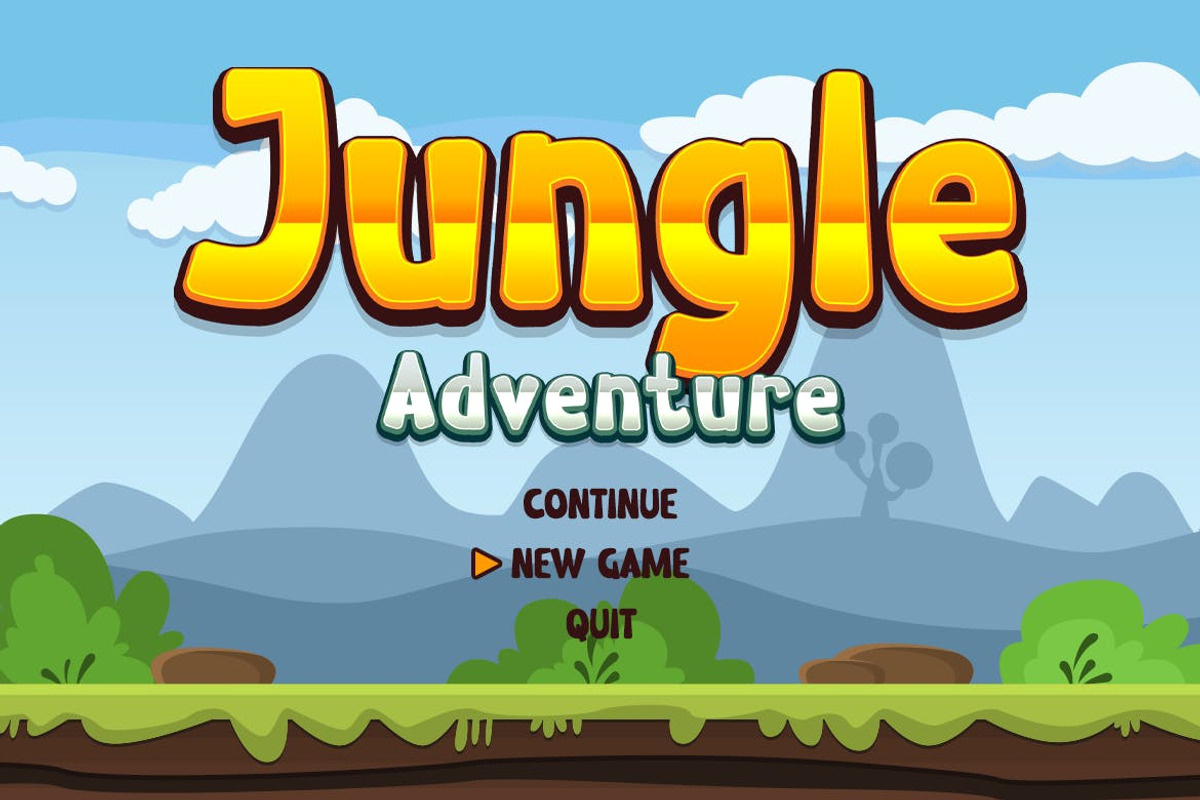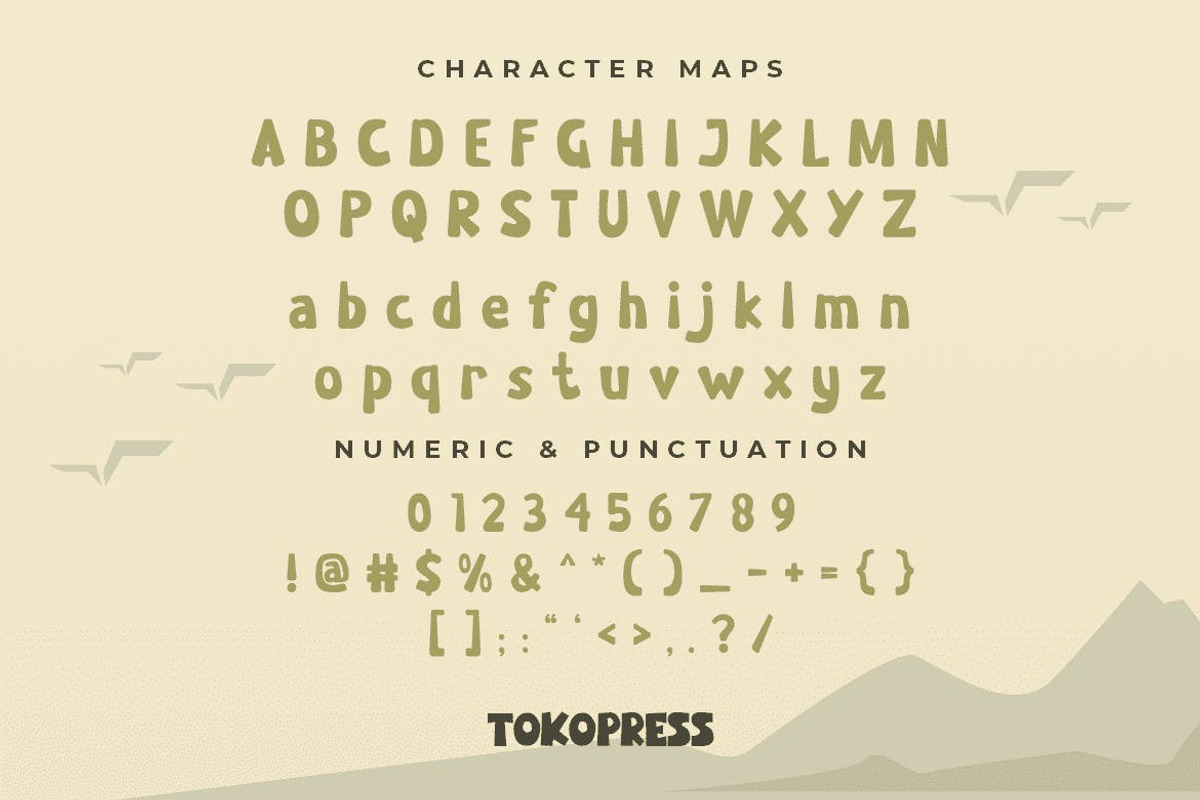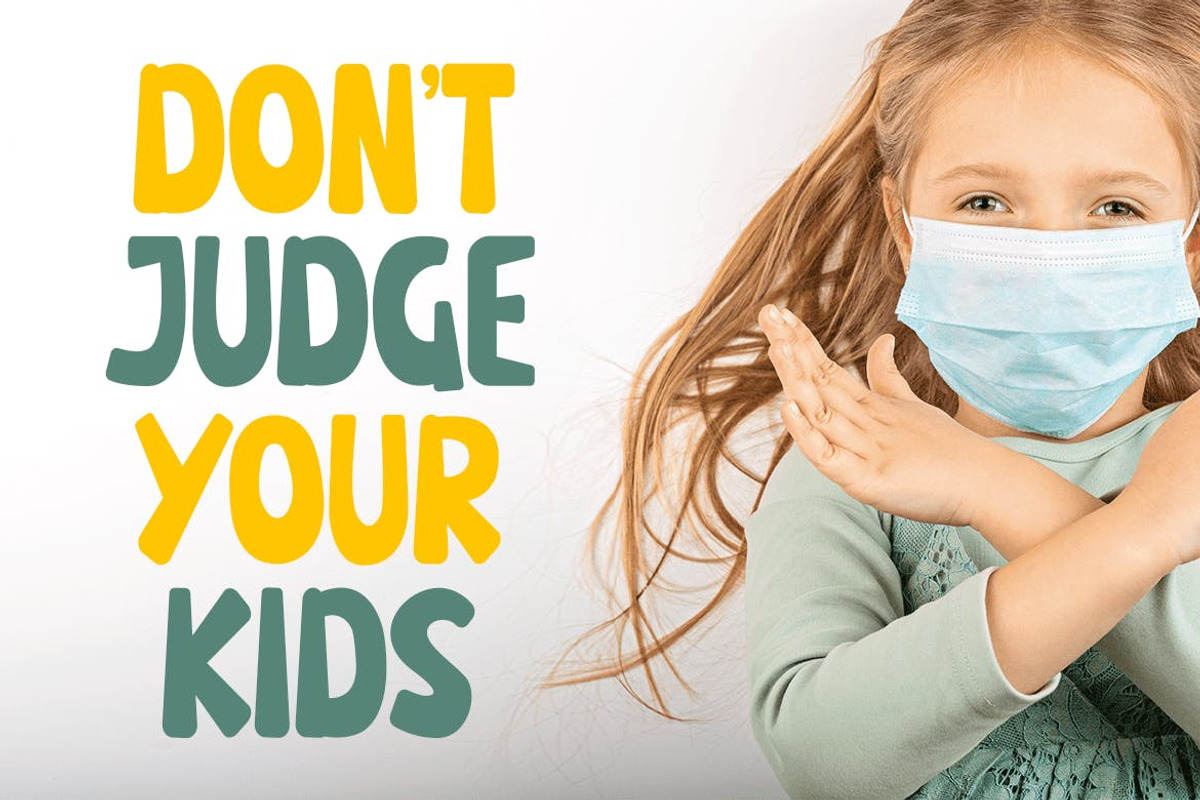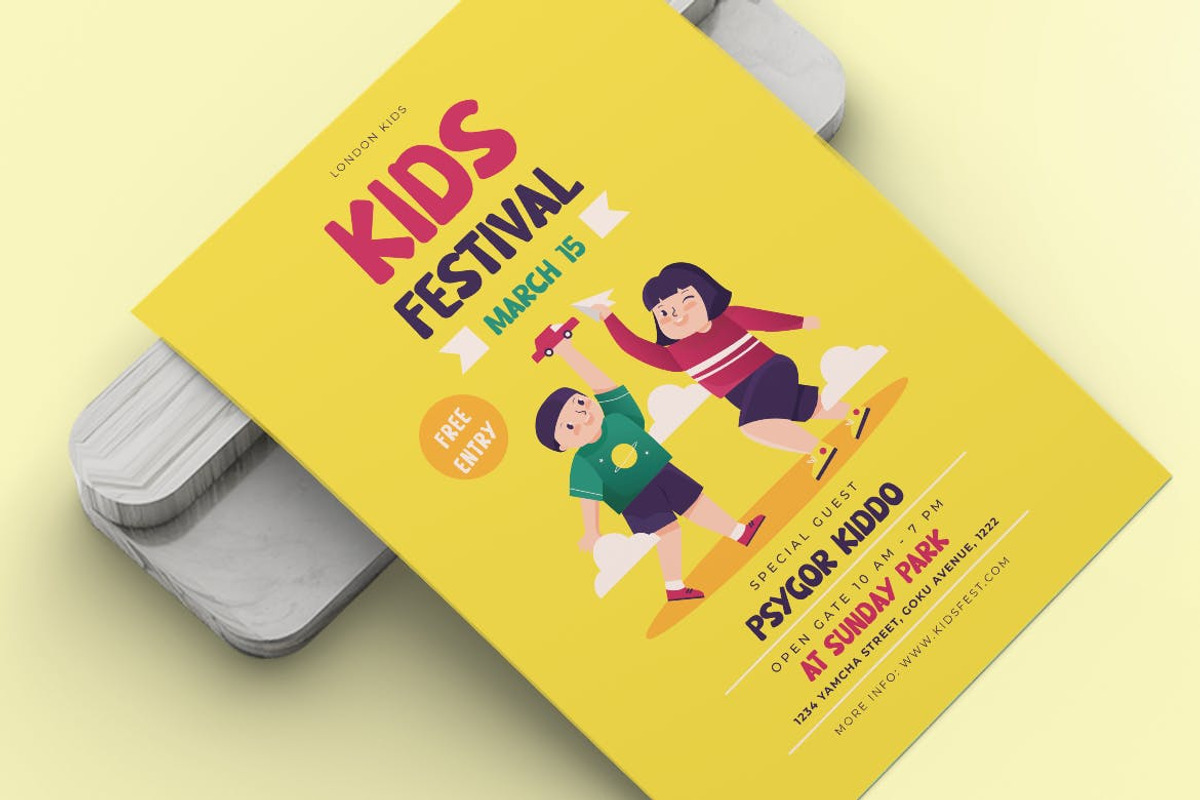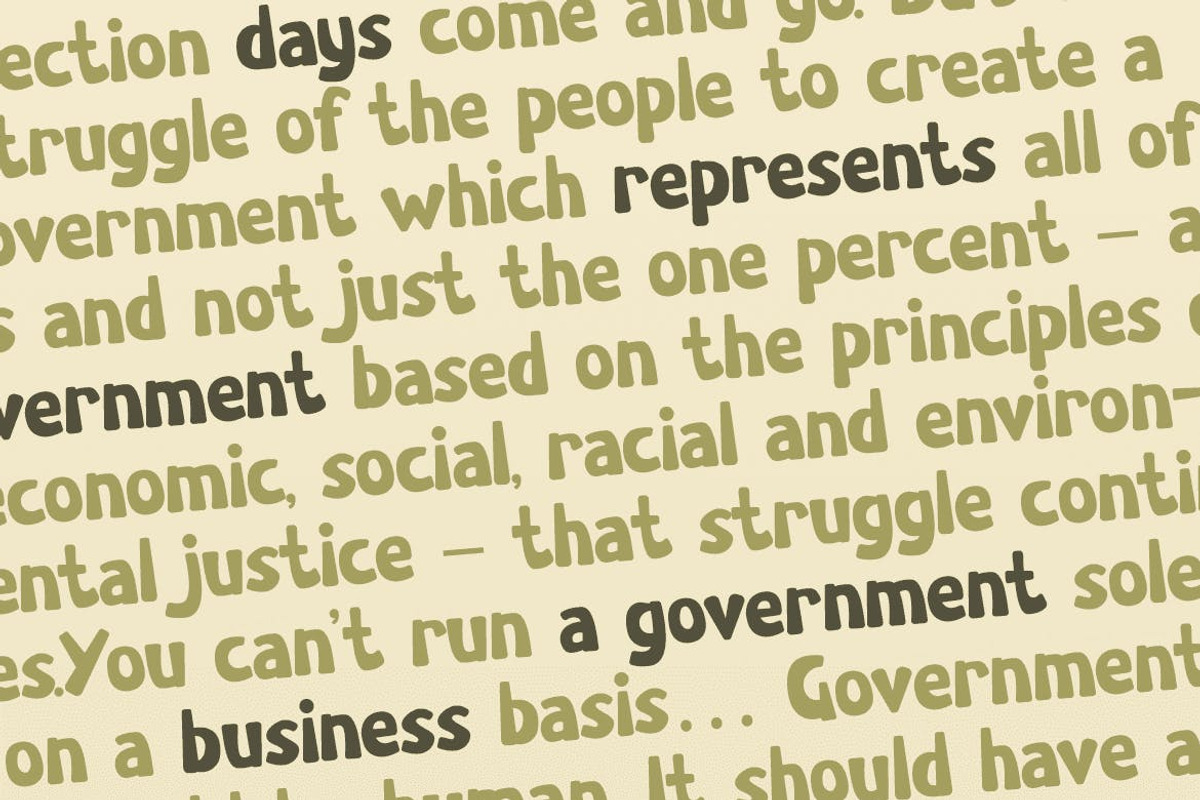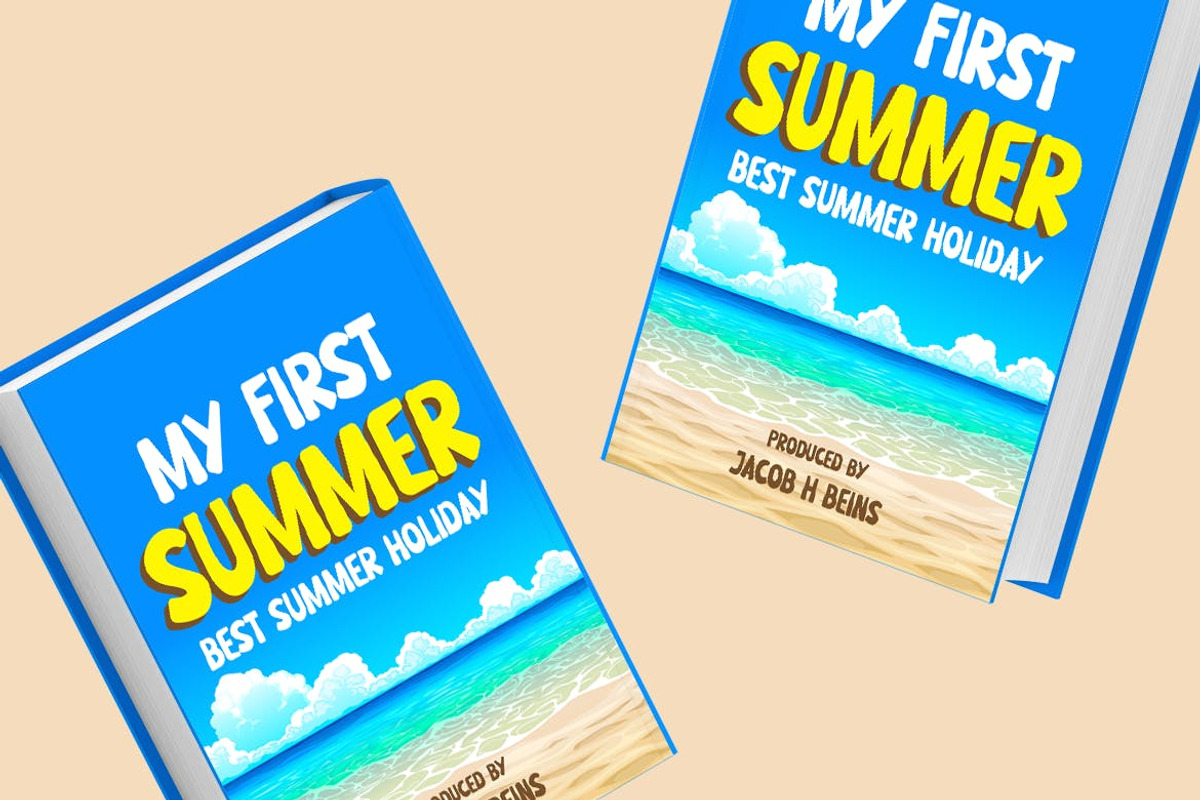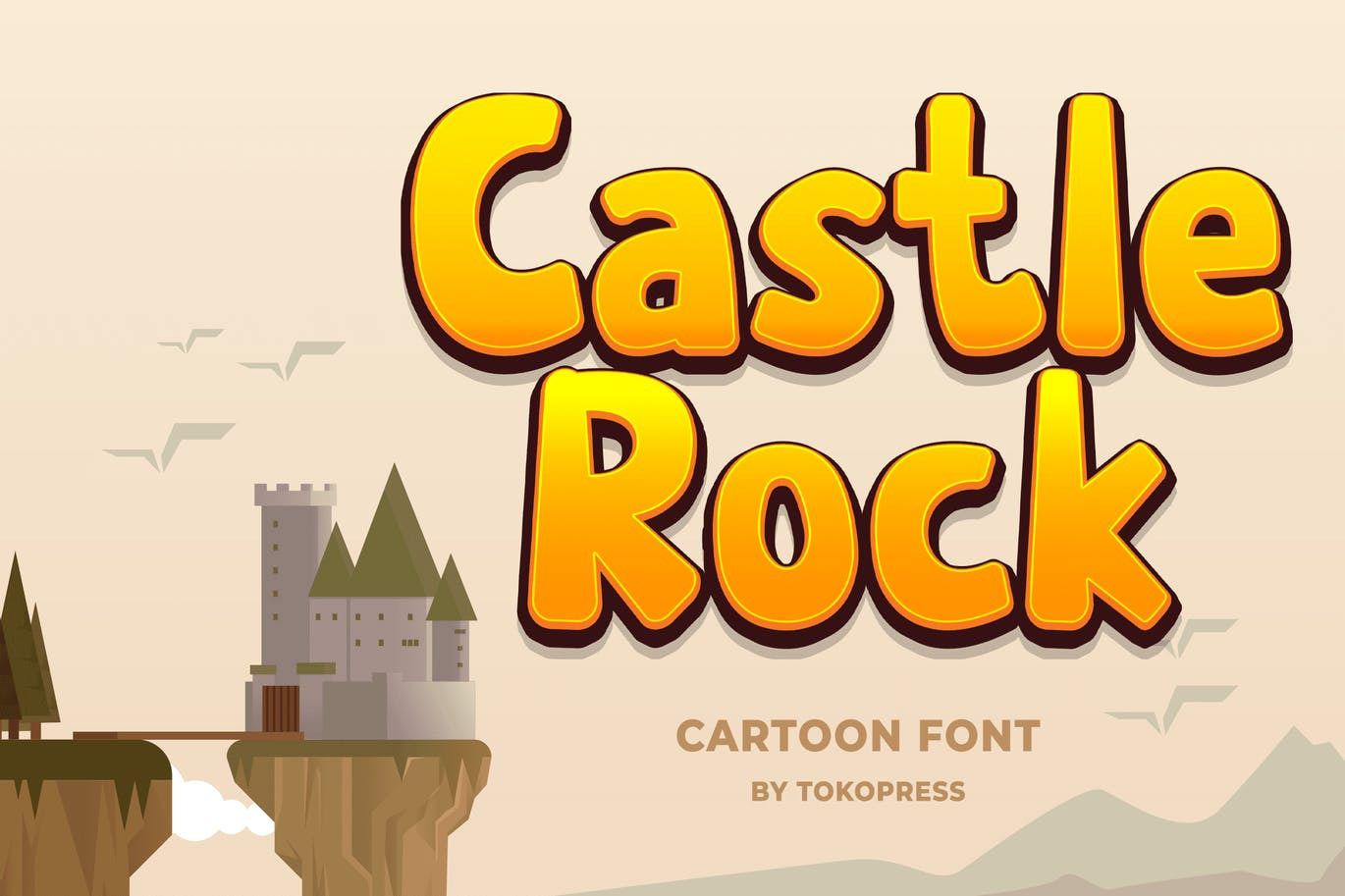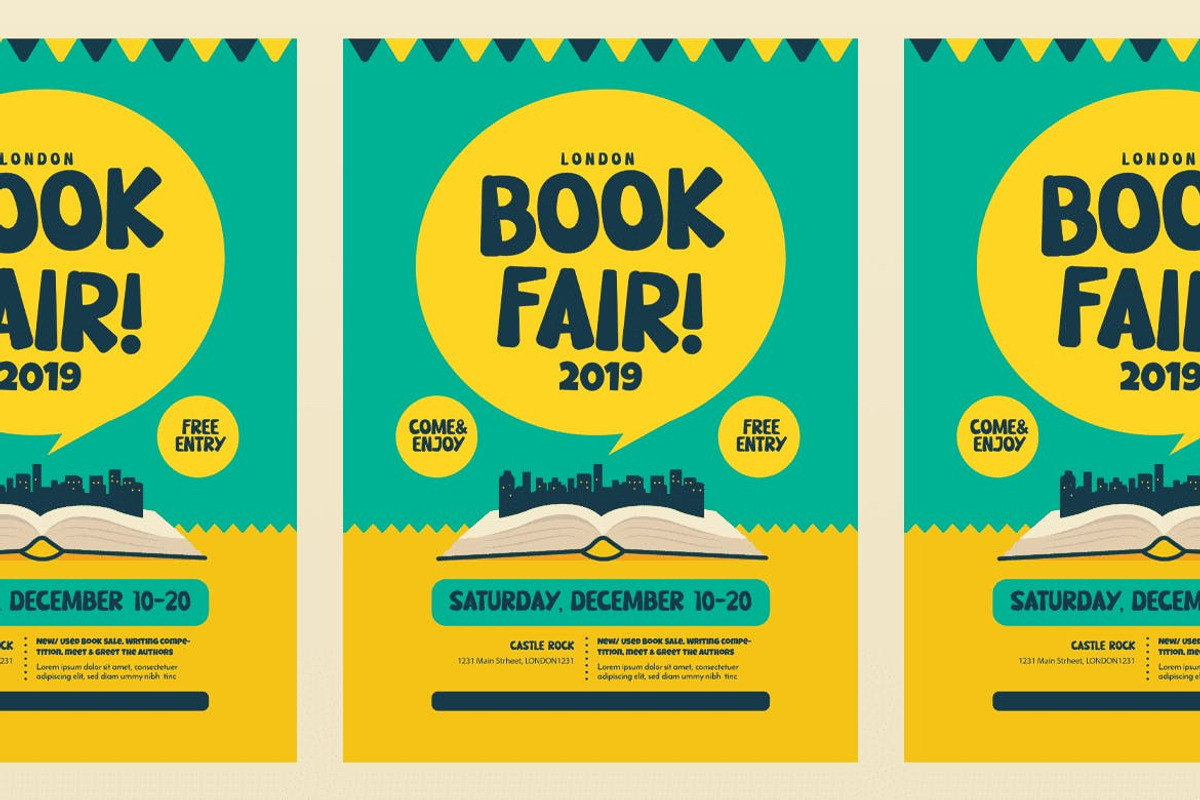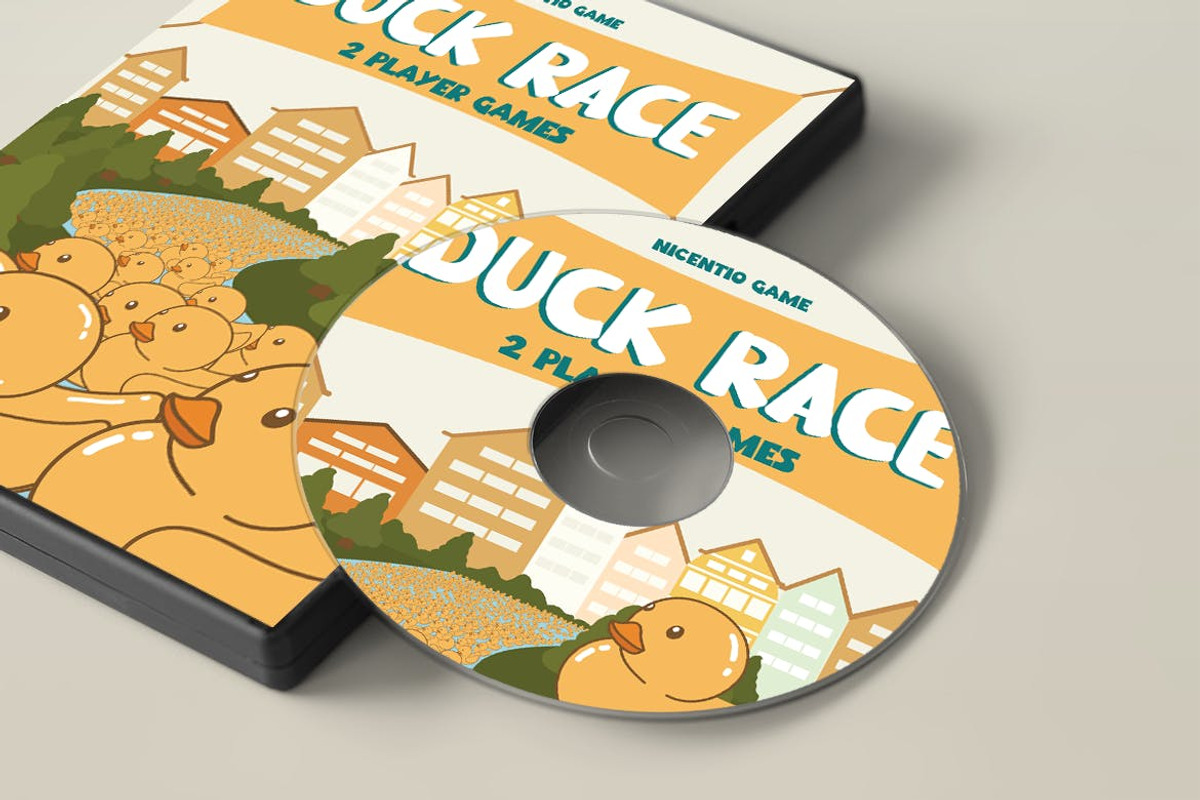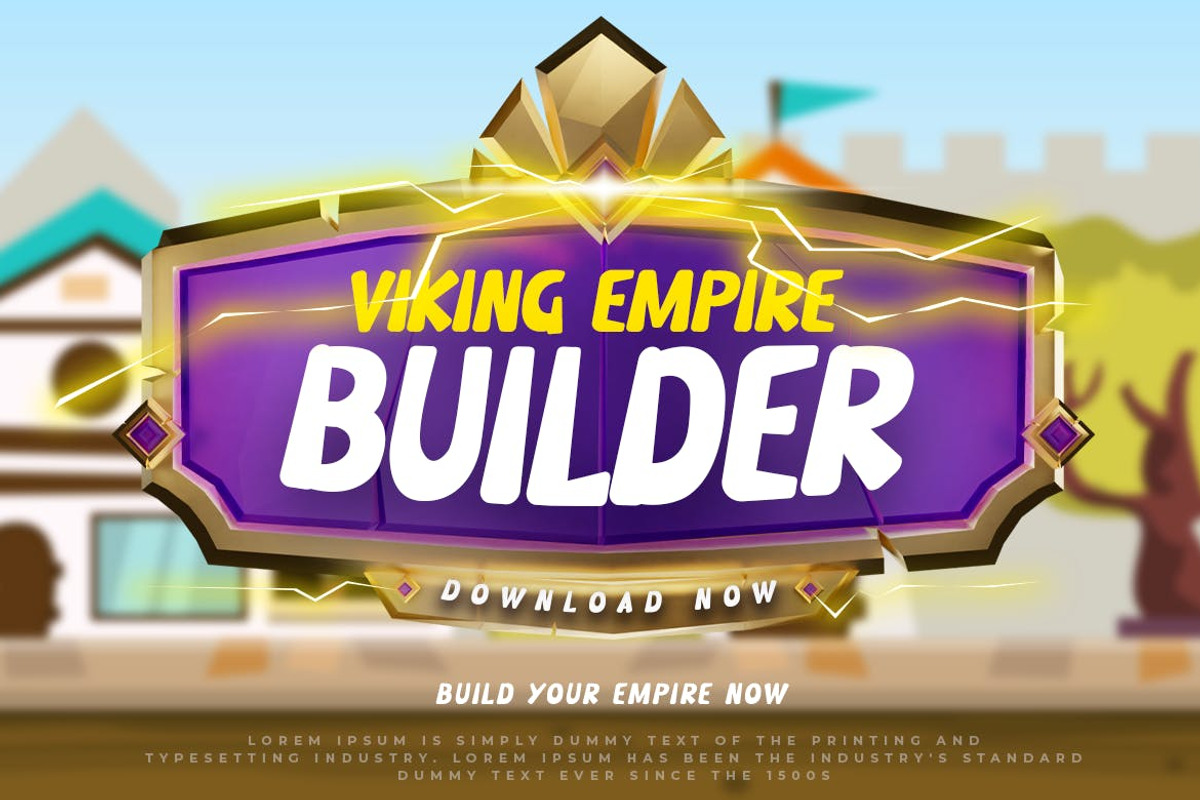
Castle Rock – Kids font
Castle Rock – Cartoon font
The medieval era is well known as an adventure and exploration era, well, that’s what kids do right? And Castle Rock will bring you just that.
Suit perfectly for kids books market, online games, stationary, school supplies font, poster, movie title, youtube covers, youtube thumbnails, social media page covers and so on…